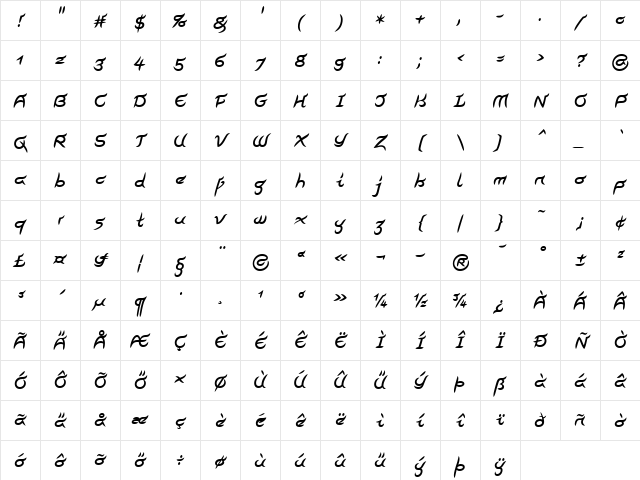
Pegathlon LT Medium Regular
Designer: Hans-Juergen Ellenberger
Design Context for Pegathlon LT Medium
Pegathlon LT Medium is a composed and adaptable typeface that performs quietly and consistently across a wide range of design contexts. Its slender proportions lend an understated elegance to any composition.